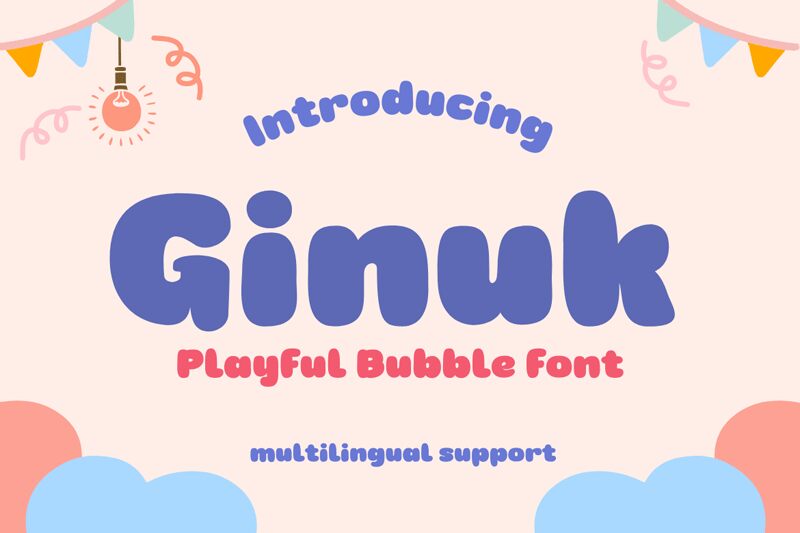
Ginuk-Regular
Discover Ginuk, the brainchild of Twinletter, a font that infuses life into every character and word. With its display type classification, Ginuk is the epitome of fun meets functionality. The playful bubble cartoon style exudes charm and friendliness, making it an irresistible choice for projects that aim to delight and engage.
Crafted with an extra-bold weight and a semi-expanded width, Ginuk adds a robust yet welcoming presence to any creative endeavor. Whether you're designing a vibrant kids' book cover or sprucing up a casual branding project, Ginuk's versatility shines through. Its distinctive curves and bouncy lines promise to elevate your designs with a whimsical flair that captivates audiences of all ages.
Ginuk